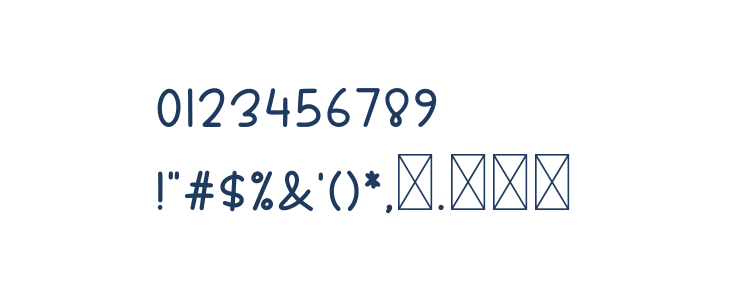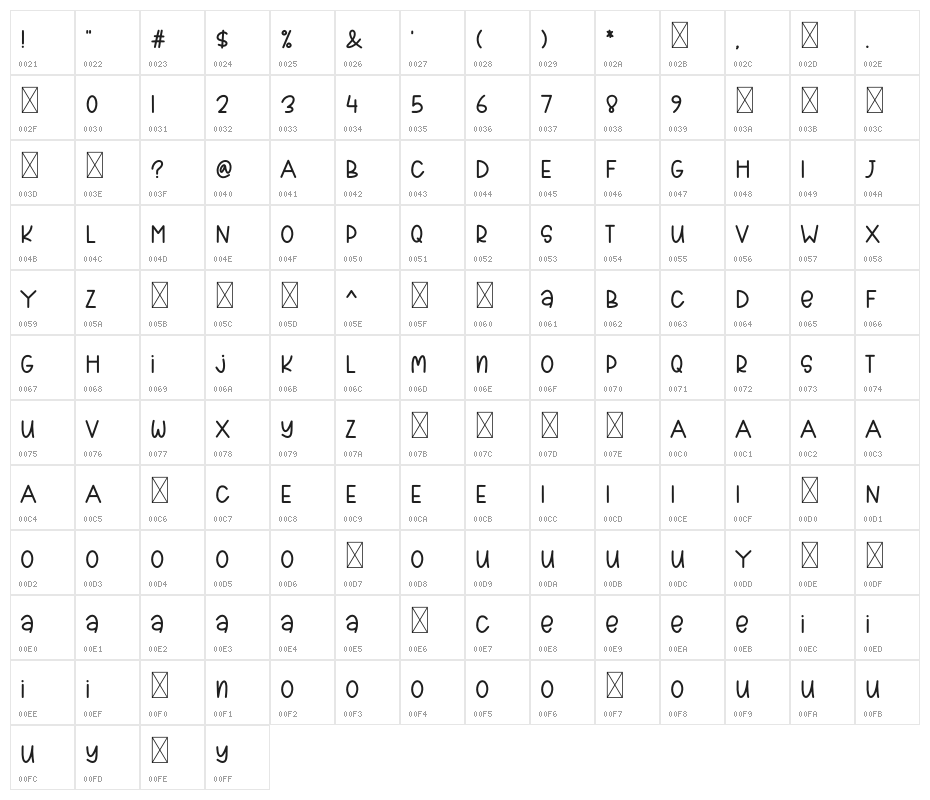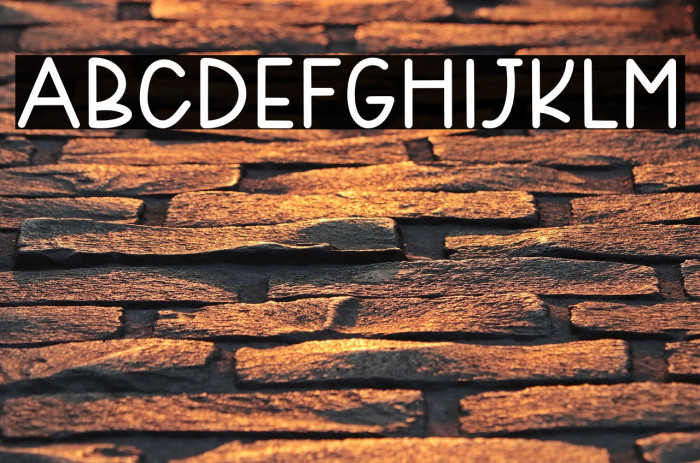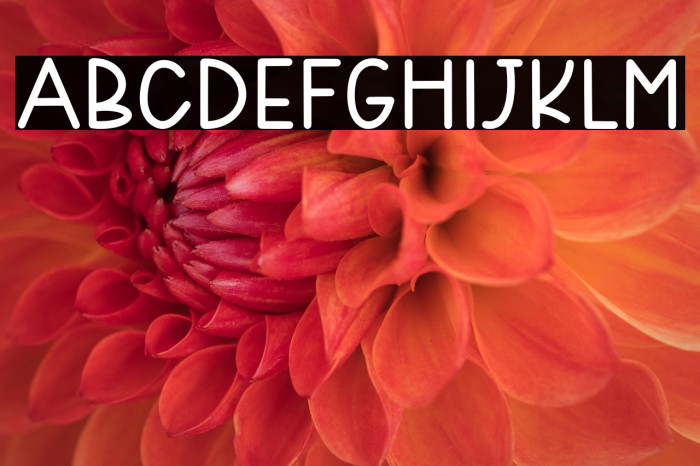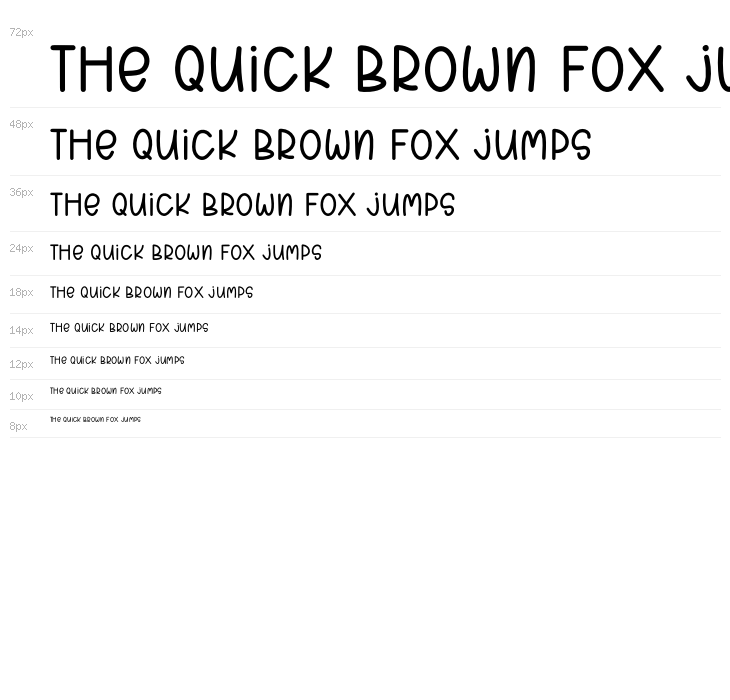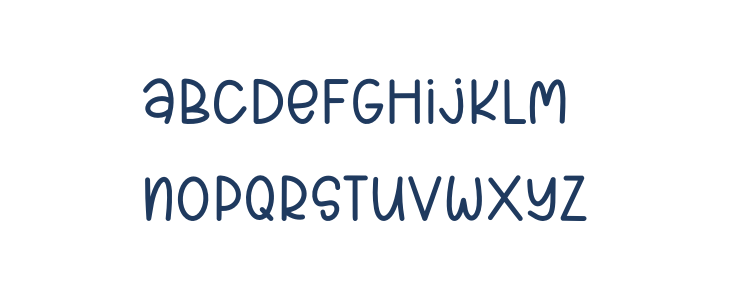
SweetWinter Font
SweetWinter Description
This playful and whimsical font features rounded edges and a hand-drawn aesthetic, giving it a friendly and approachable feel. The characters are evenly spaced with a consistent stroke width, creating a harmonious and balanced appearance. The uppercase and lowercase letters maintain a uniform style, while the numerals and special characters complement the overall design. Its simplicity and charm make it suitable for a variety of creative projects.
| Proposed Projects | Ideal for children's books, greeting cards, playful branding, and casual invitations. |